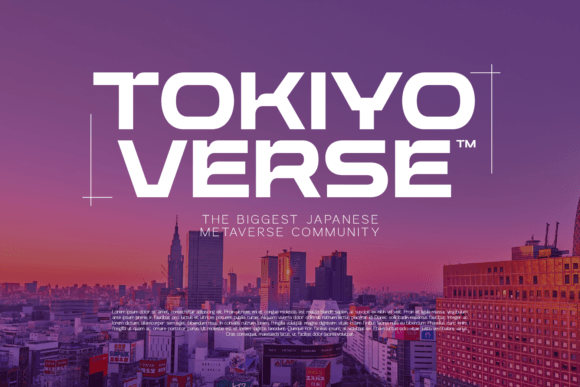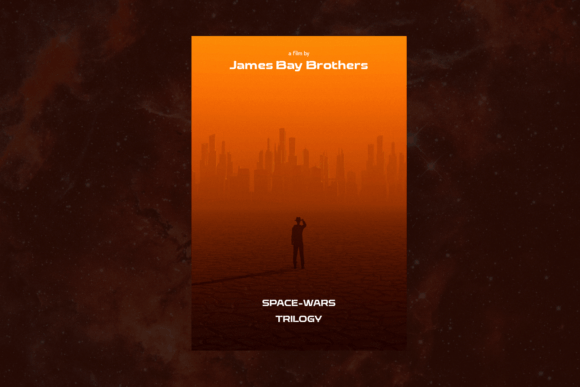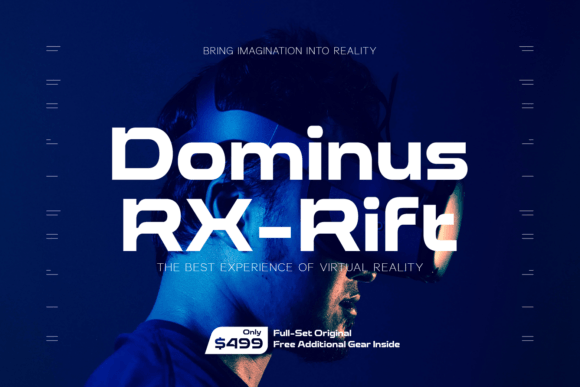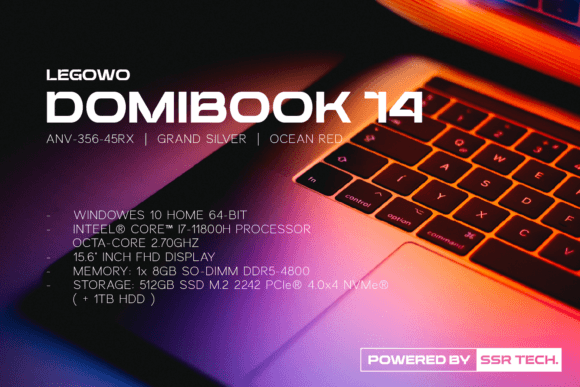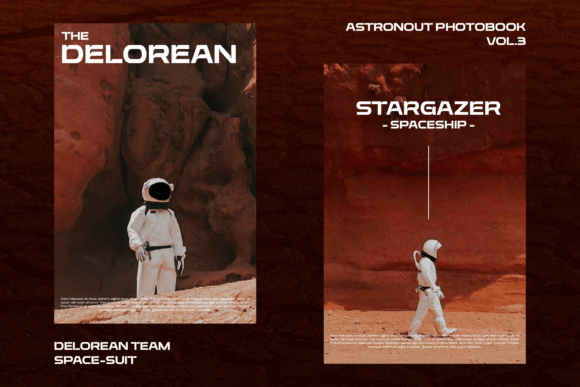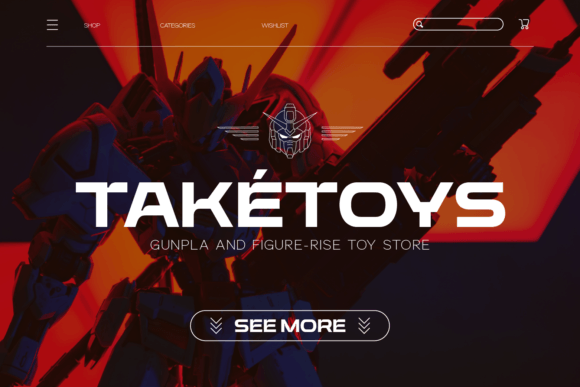
Introduction to Metazord Font
Metazord Futuristic Sci-Fi Display Font is perfect for your up coming projects such as logo branding, editorial design, esport design, 80s retro design, gaming industry, music poster, website design, modern advertising design and so much more.
Metazord Futuristic Sci-Fi Display Font is perfect for your up coming projects such as logo branding, editorial design, esport design, 80s retro design, gaming industry, music poster, website design,
Key Features of Metazord Font
Why Choose Metazord Font?
Metazord Font offers exceptional quality and versatility, making it a valuable addition to your design toolkit. Whether you’re creating for personal projects or commercial use, Metazord Font delivers professional results.